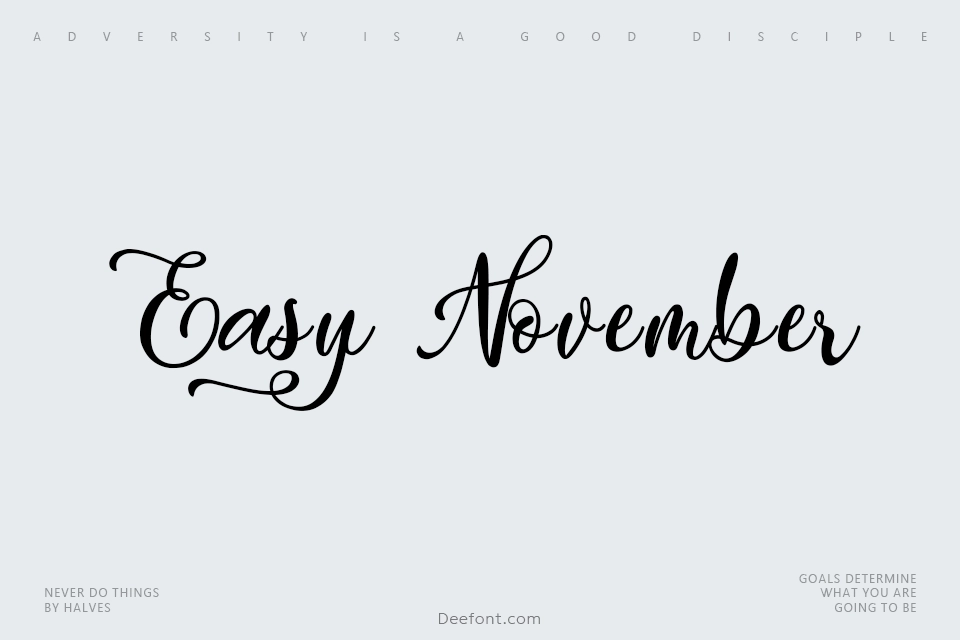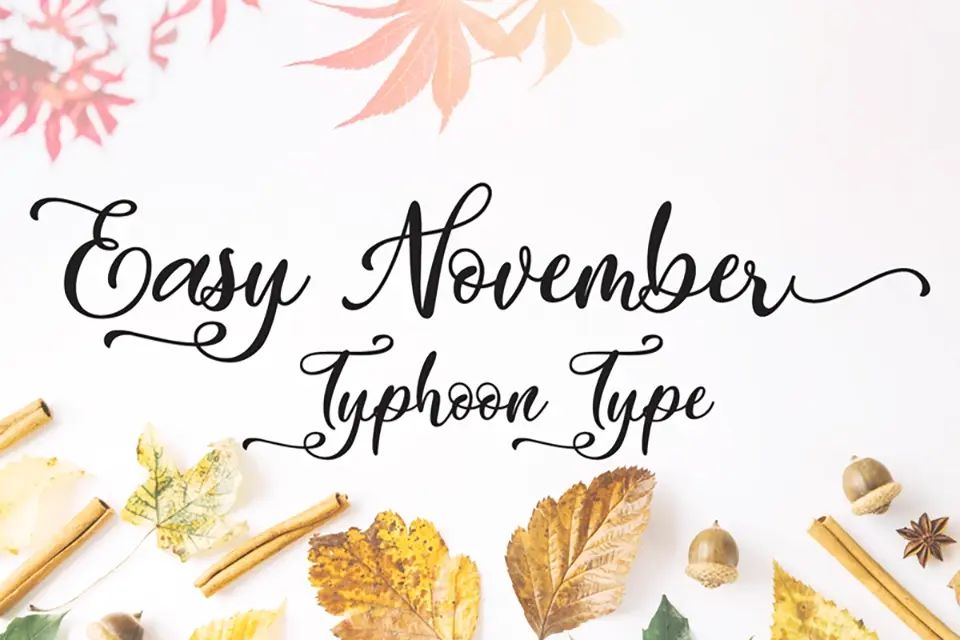
Easy November Font
The Easy November font is a free-for-personal-use script and handwritten typeface crafted by Typhoon Type – Suthi Srisopha. With its gentle curves and contemporary handwritten style, Easy November adds a warm, creative touch to cards, invitations, logos, and branding. Ideal for personal, non-commercial projects, this font lends a smooth handwritten effect that stands out in both digital and print designs. Commercial use requires a license purchase, making it a perfect choice for designers seeking stylish, elegant script for personal and charity projects.